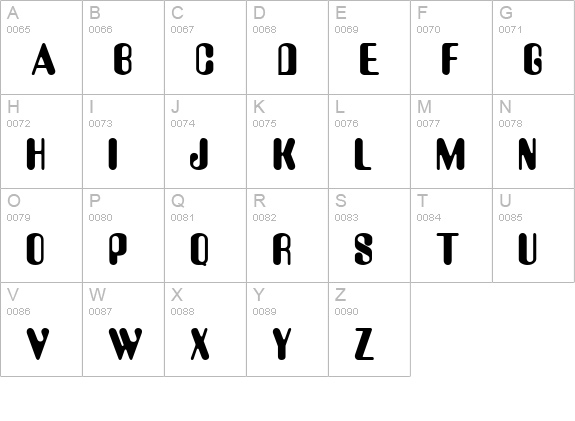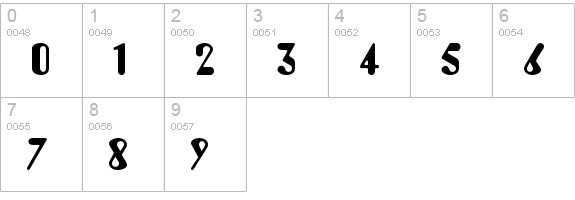
Amos Bold is a strong, high-contrast variant in the Amos typeface family \xE2\x80\x94 well suited to headlines, attention-grabbing titles, and strong calls-to-action.
Amos Bold font is a stylish and modern typeface that exudes confidence and elegance. Its bold and eye-catching design makes it perfect for a wide range of design projects, from logos to headlines to branding materials. The clean lines and contemporary feel of Amos Bold font make it a versatile choice for both print and digital applications. Best of all, Amos Bold font is available for free download at FontsMarket.com. This means that you can easily access this high-quality font without having to break the bank. Whether you are a professional designer or just looking to add a touch of sophistication to your personal projects, Amos Bold font is a fantastic choice that won't cost you a thing. Download it today and elevate your designs with this sleek and modern typeface.